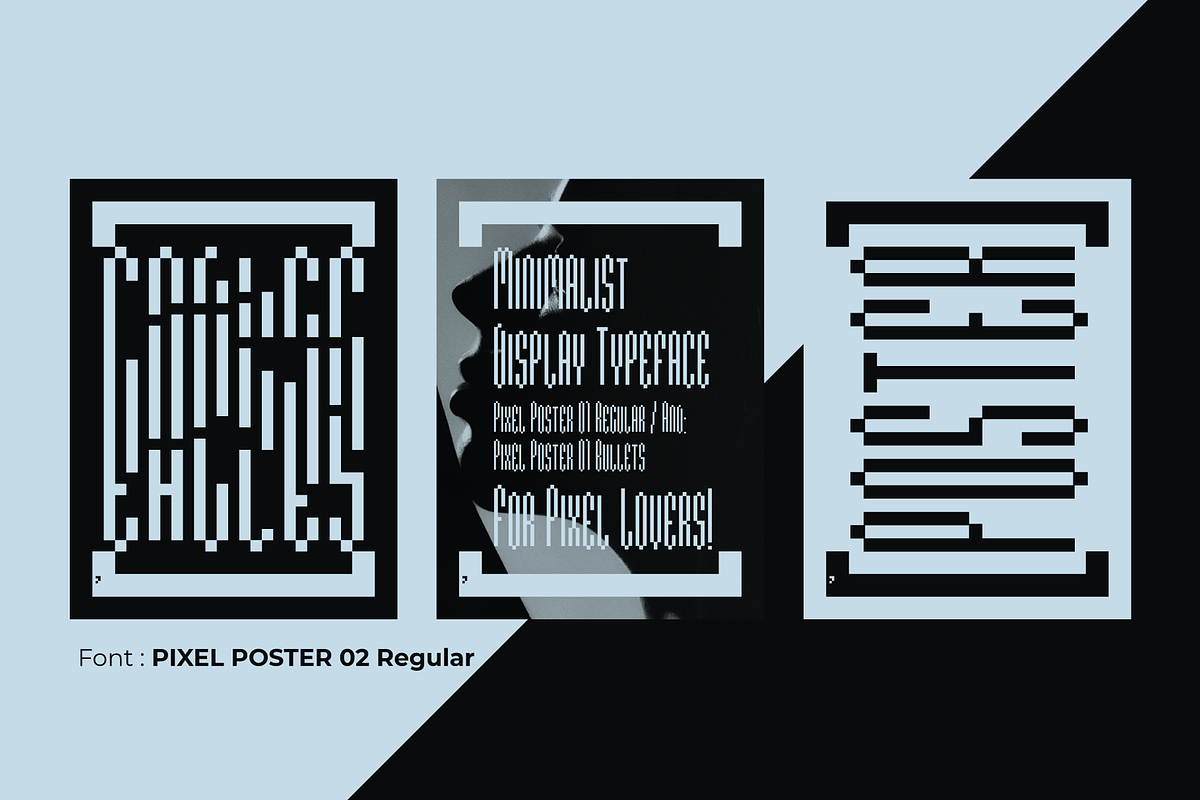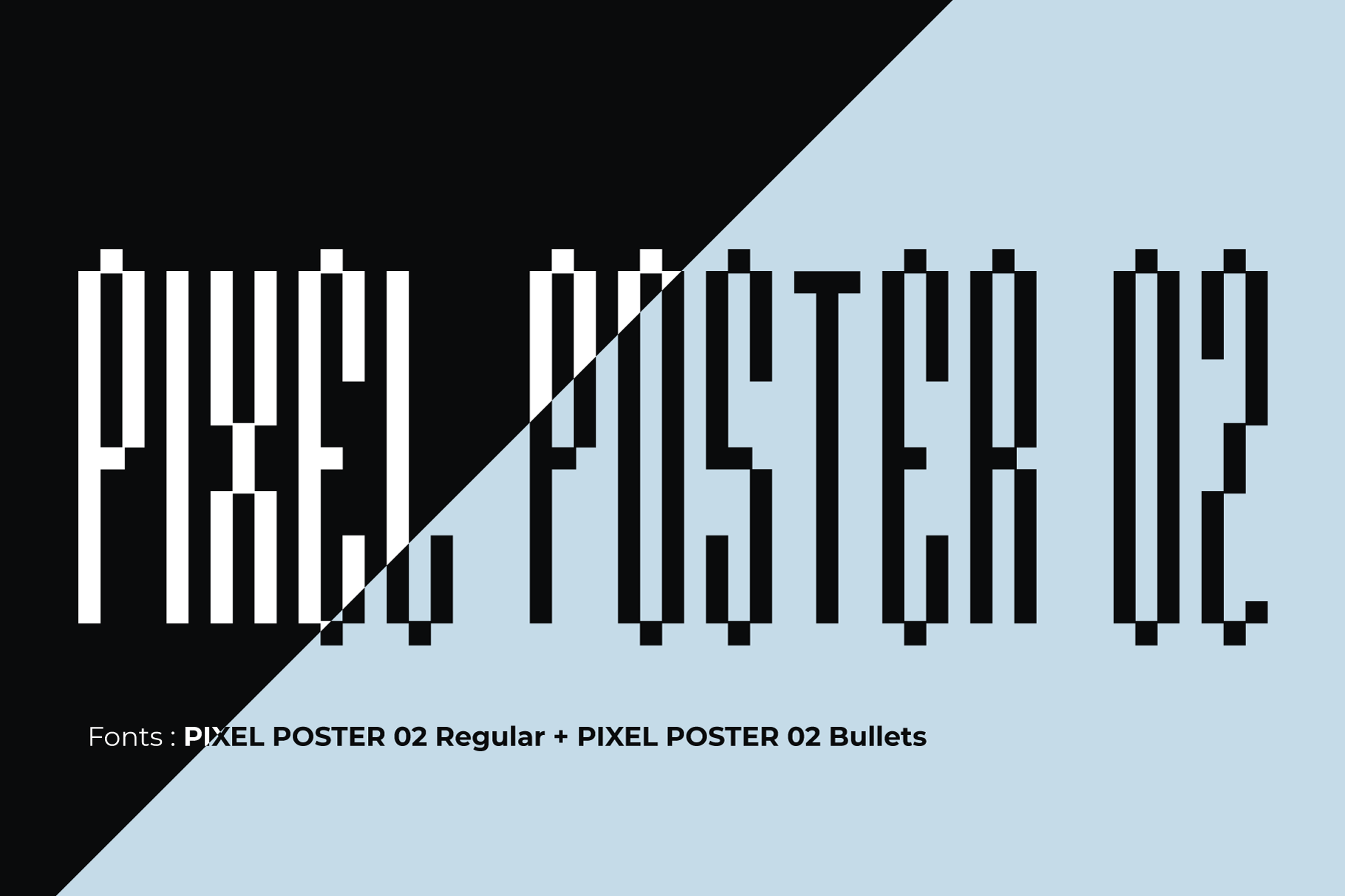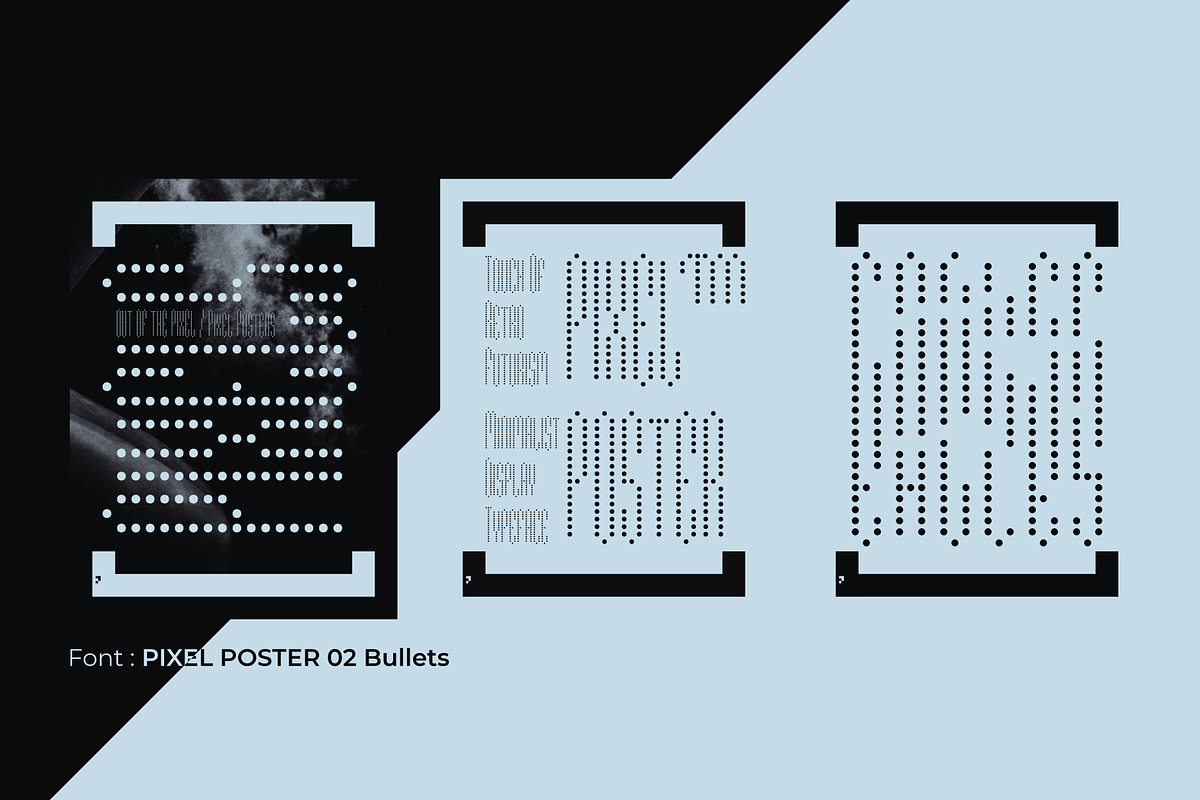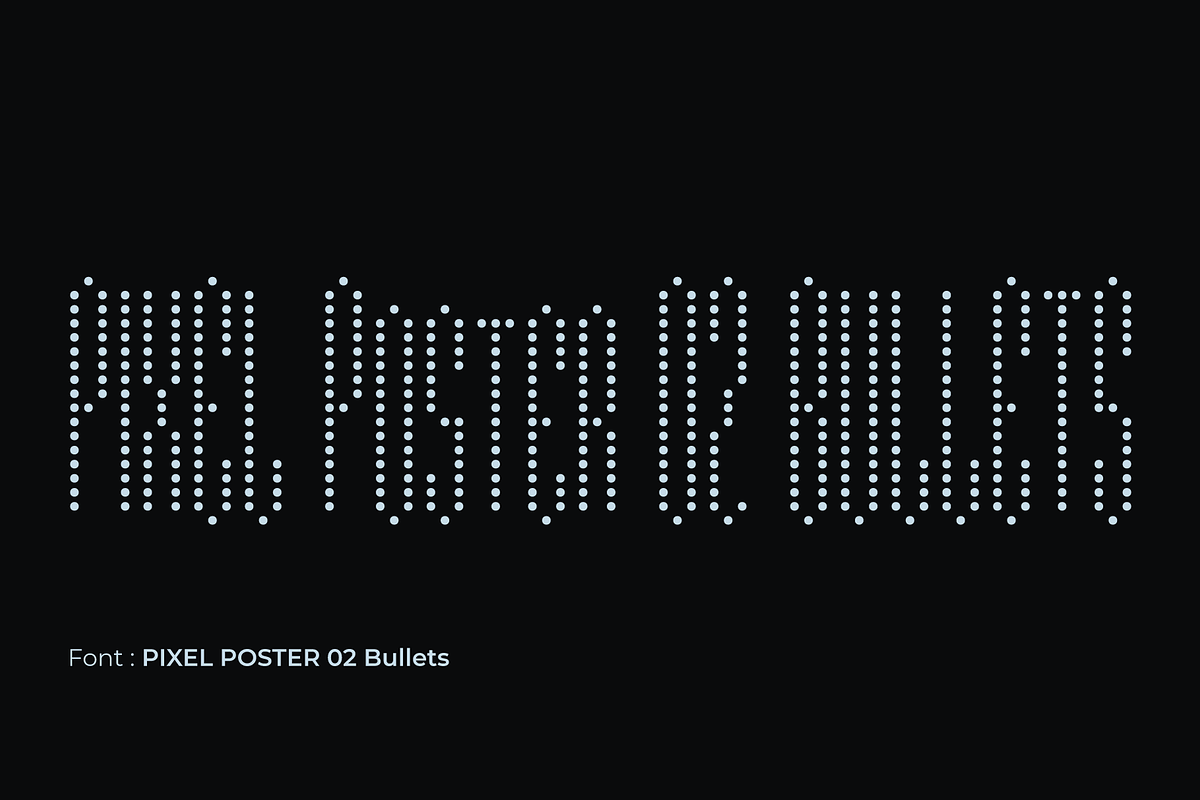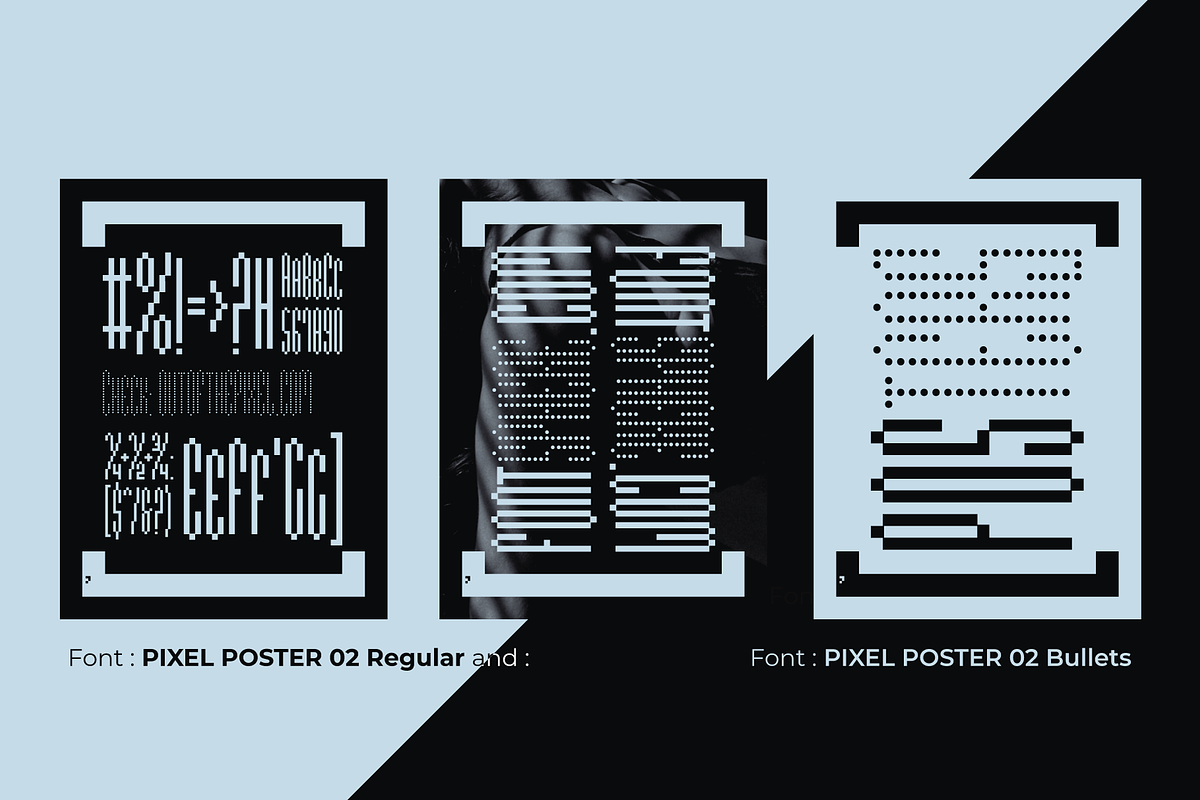
Pixel Poster 02 - Typeface
Pixel Poster 02: Pushing the Boundaries of Pixel Art with a Futuristic Edge
Pixel Poster 02 isn't your average pixelated typeface. It takes the familiar pixel art style and injects it with a dose of experimentation and edge, creating a display font that demands attention. Building on the foundation of Pixel Poster 01's minimalist and futuristic aesthetic, Pixel Poster 02 elevates it to the next level. It introduces unique letterforms with a bolder personality, ensuring they'll stand out from the crowd in any design.
Key characteristics of Pixel Poster 02:
- Experimental and edgy style: Pixel Poster 02 breaks away from the traditional pixelated font aesthetic, featuring slanted characters, interesting details, and a more dynamic overall appearance.
- Futuristic flair: Despite its experimental nature, Pixel Poster 02 retains the futuristic vibe of its predecessor, making it perfect for projects that want to convey a sense of innovation and cutting-edge technology.
- Attention-grabbing: The unique letterforms and bold style of Pixel Poster 02 are sure to grab attention and make your designs stand out.
- Versatility: Like Pixel Poster 01, Pixel Poster 02 can be used for a variety of purposes, including headlines, titles, logos, social media graphics, and product packaging.
If you're looking for a font that is both eye-catching and unconventional, and that can add a touch of futuristic edge to your designs, then Pixel Poster 02 is a great choice.
Here are some examples of how you can use Pixel Poster 02 in your designs:
- Create bold and attention-grabbing headlines for your website or blog.
- Design futuristic logos that push the boundaries of conventional design.
- Add a touch of edge to your social media graphics and marketing materials.
- Use it for product packaging that stands out from the crowd.
- Create pixelated art and illustrations with a unique and experimental style.
Pixel Poster 02 is a font that is not afraid to break the mold. With its unique blend of futurism, edginess, and experimental style, it is sure to add a touch of personality and innovation to your designs.